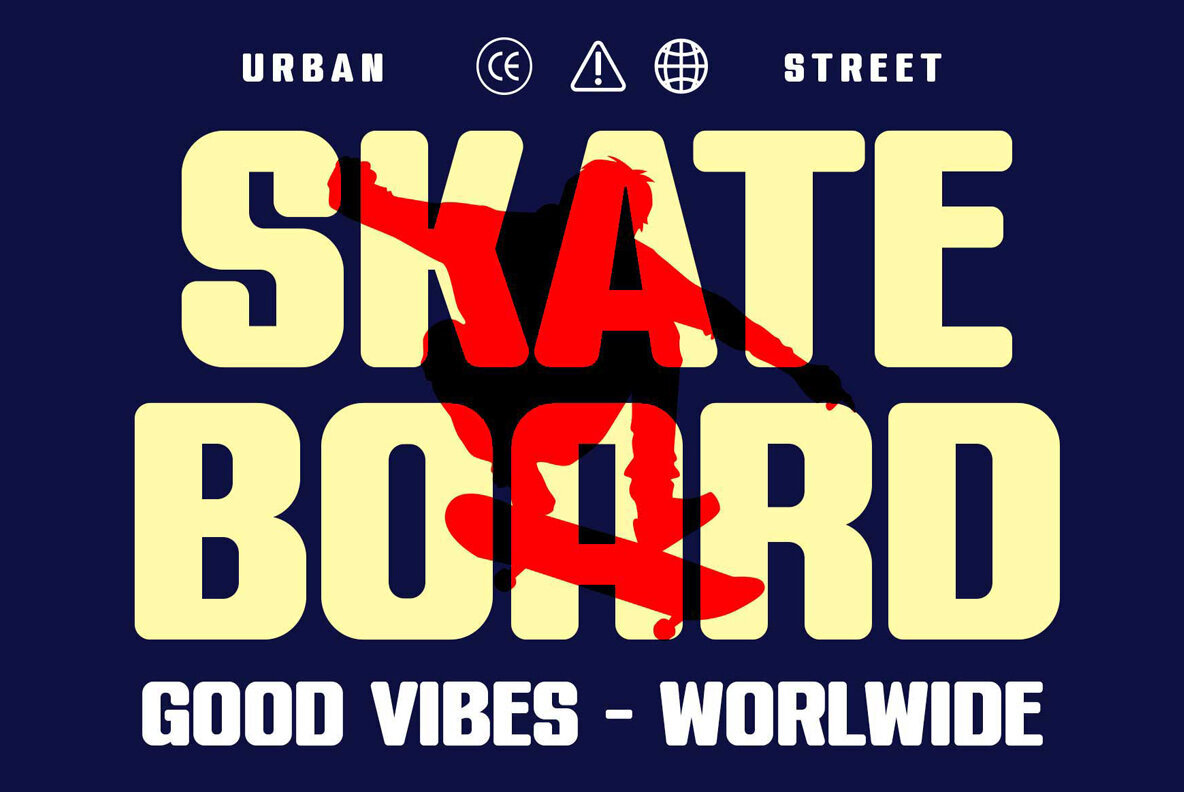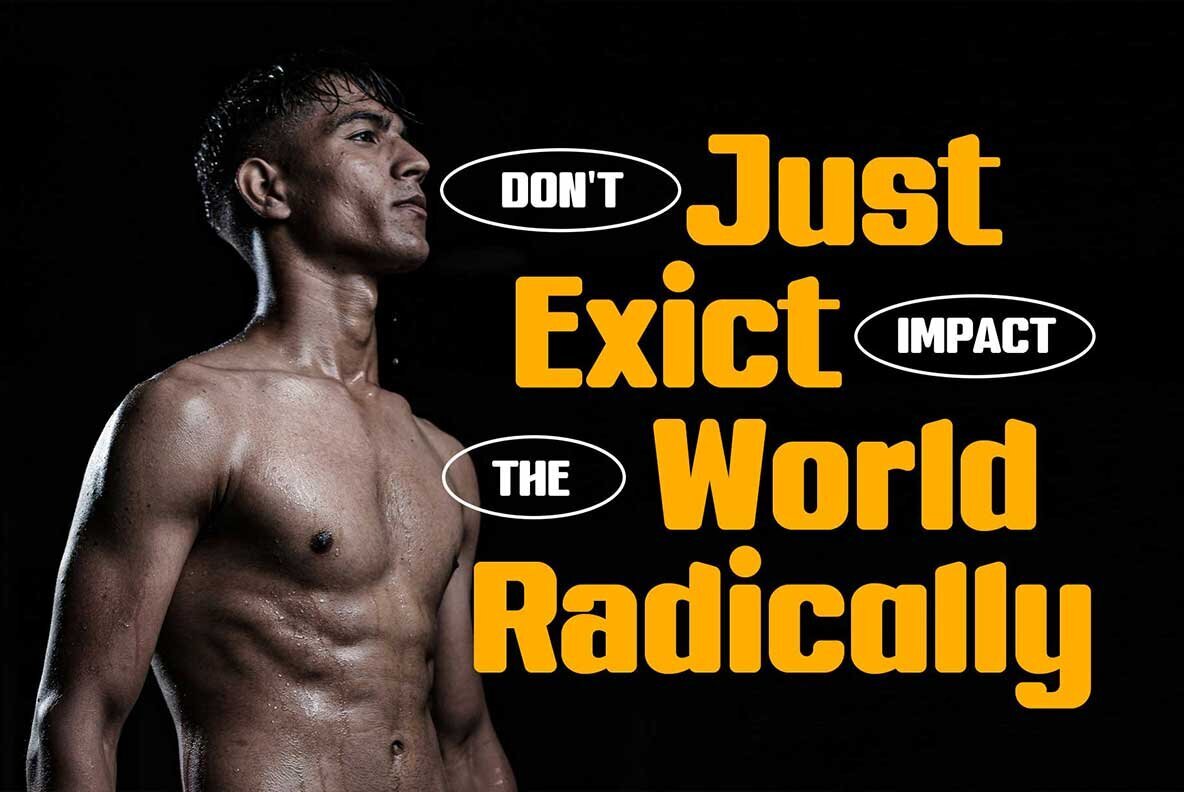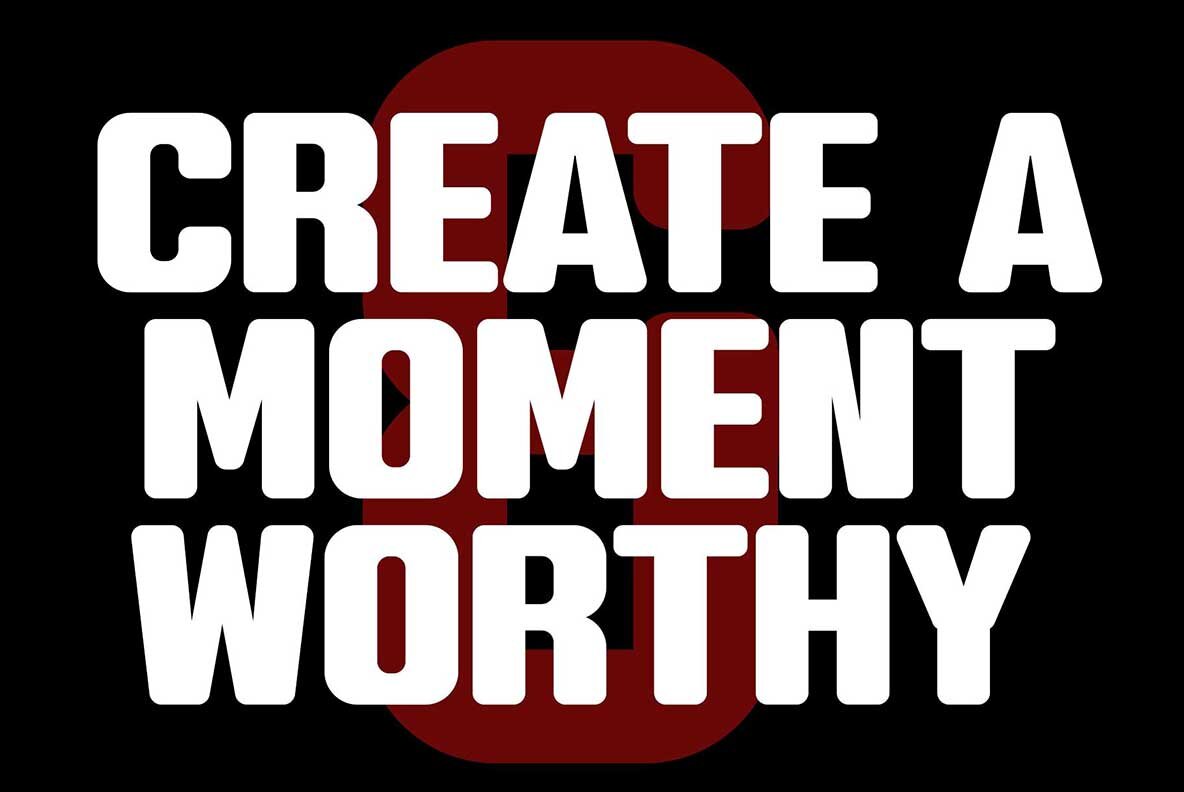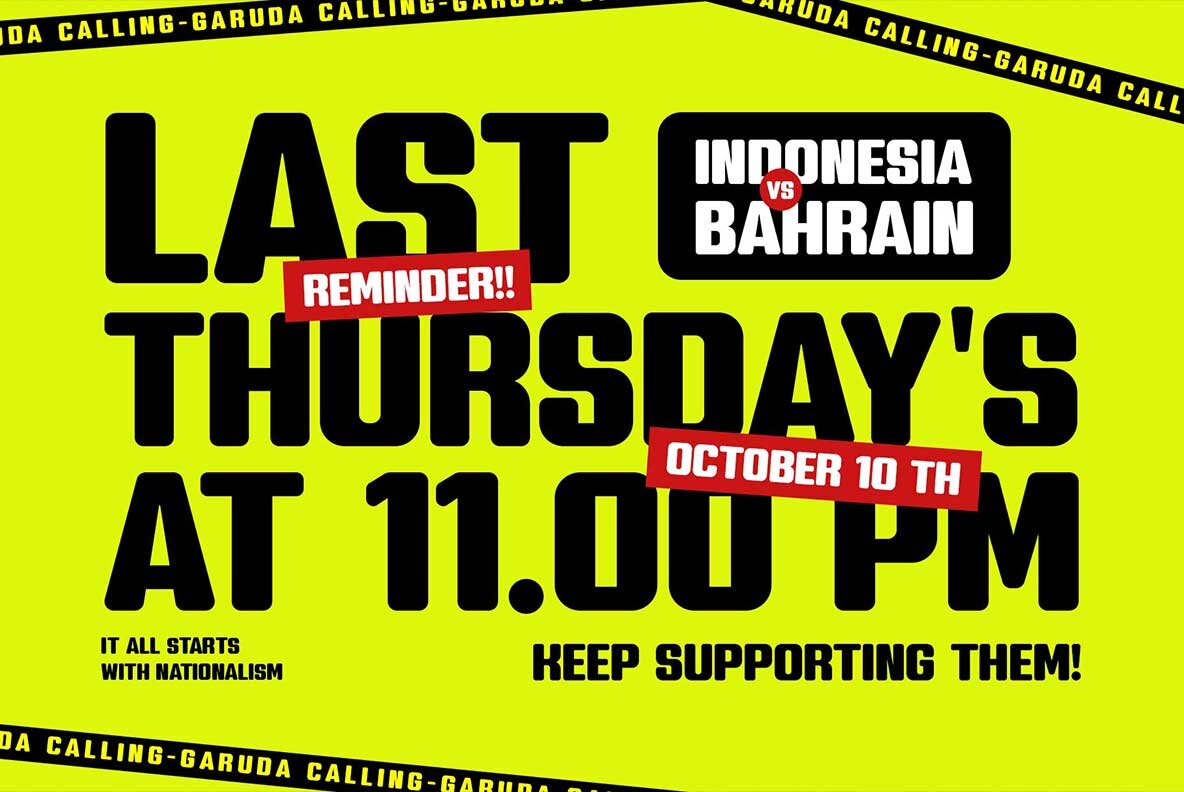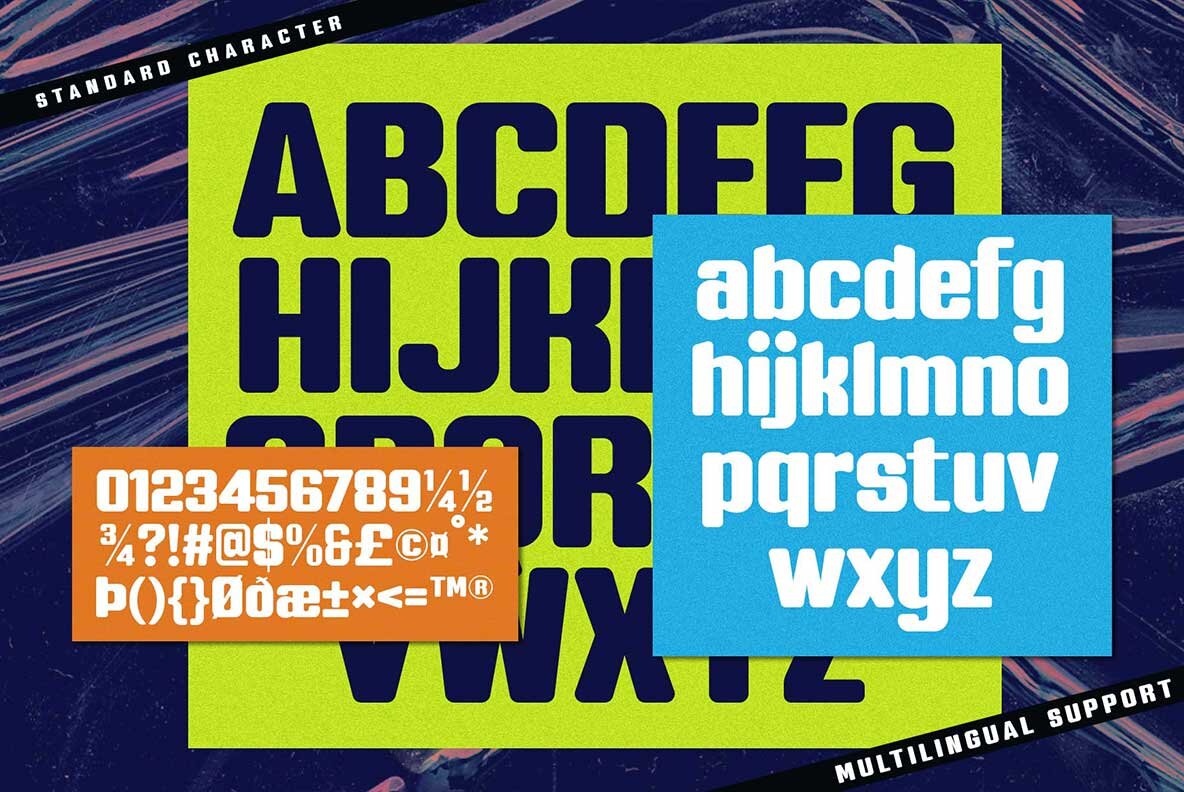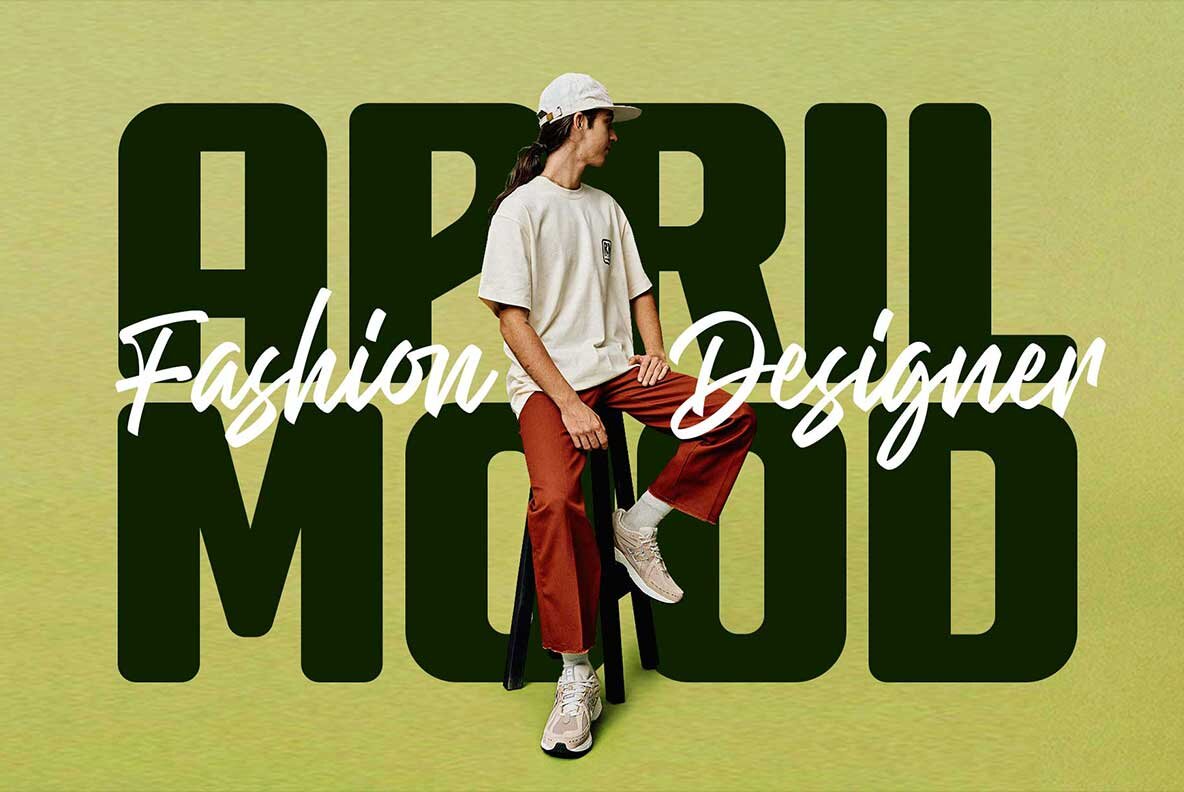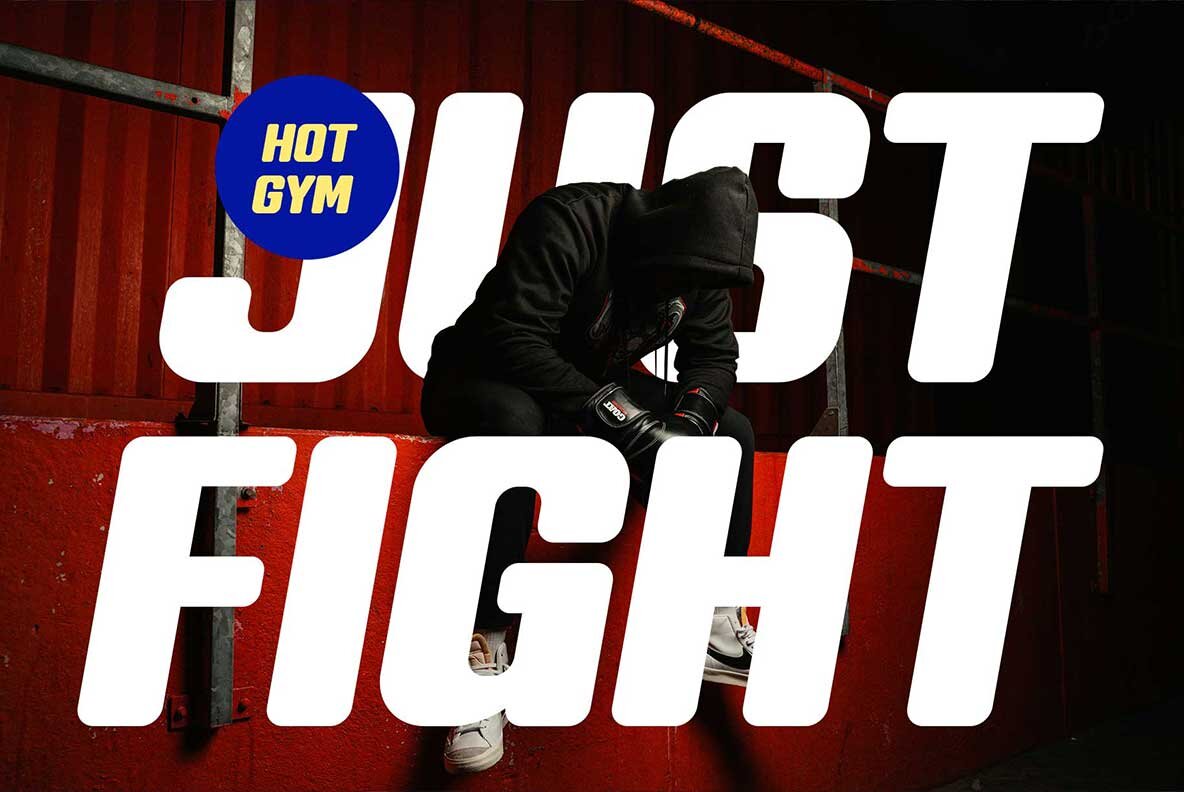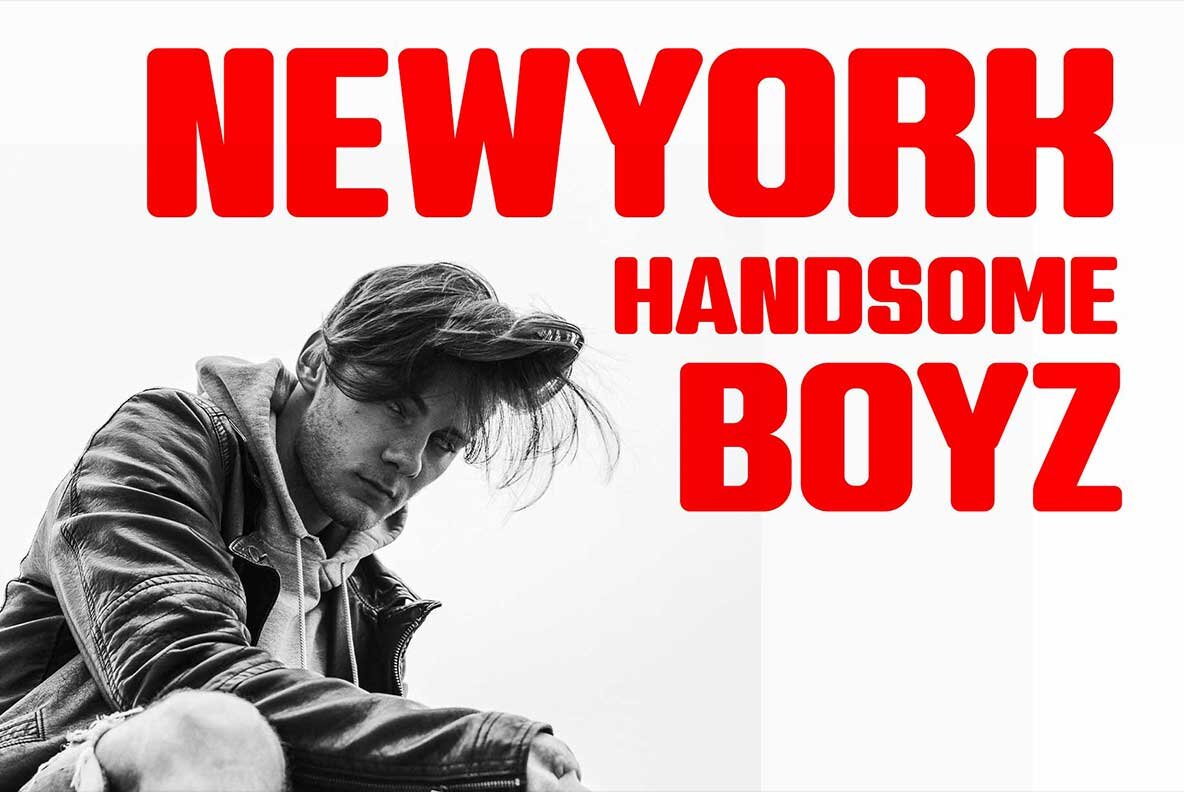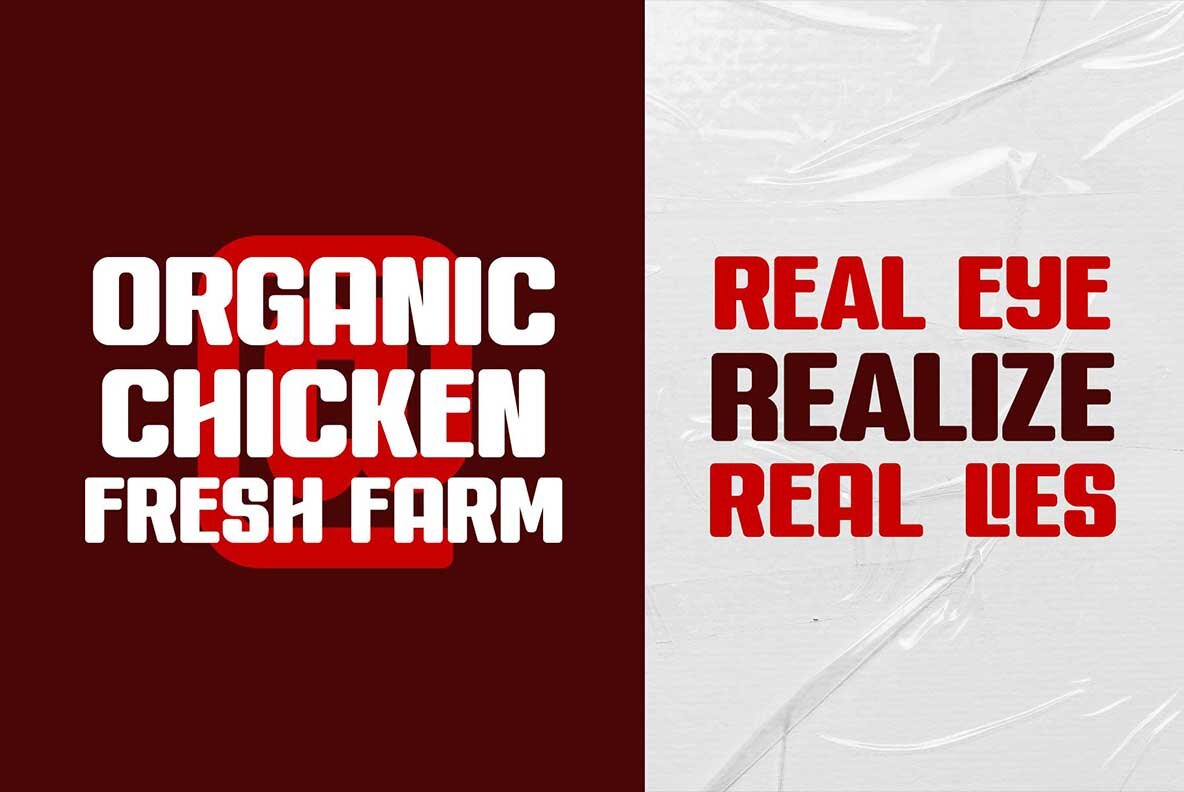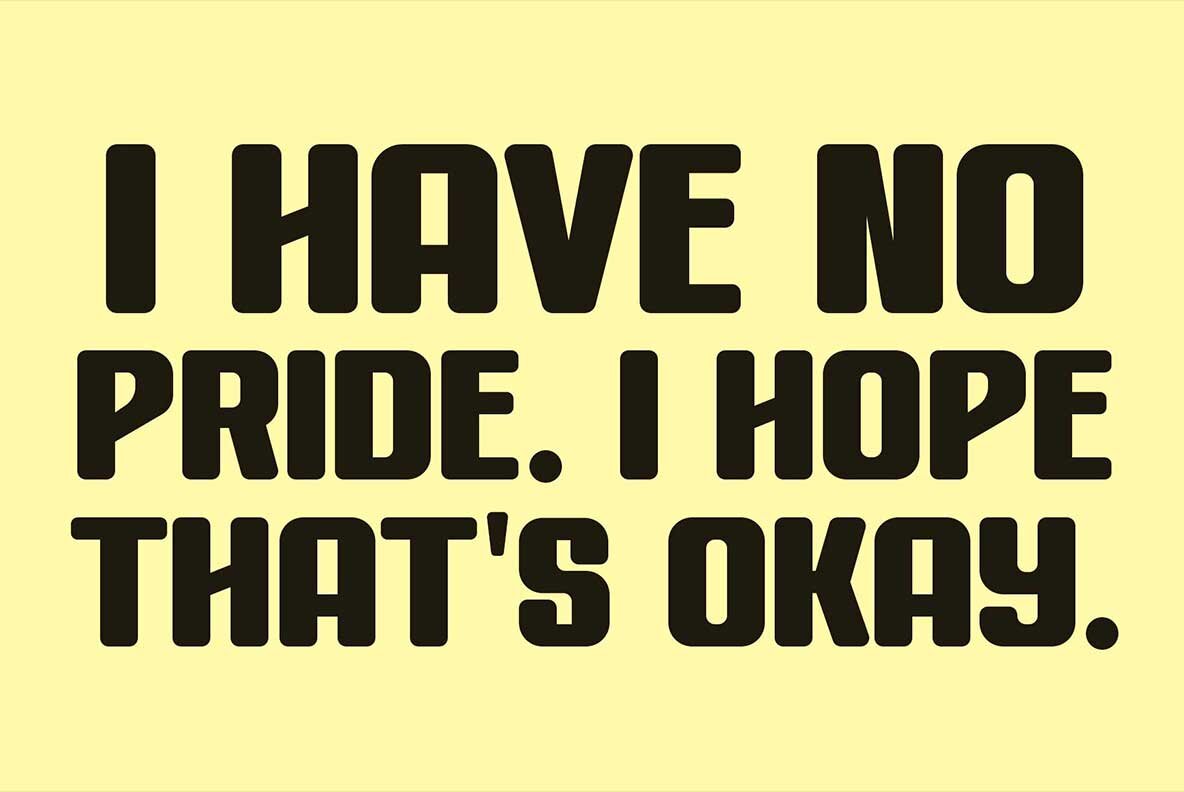
Grand Bageur Font
Introducing a font that artfully blends sporty strength with elegance through its condensed, rounded-edge design. Perfectly suited for logos, branding, and urban style projects, this font shines in a variety of applications such as sports merchandise, posters, and headlines. Its bold presence in both regular and slanted styles ensures a sleek, professional finish for your projects.
This versatile font includes uppercase and lowercase letters, numbers, symbols, stylistic alternates, ligatures, and multilingual support. These features provide a comprehensive toolkit for a diverse array of creative endeavors, making it ideal for designs ranging from stickers to quotes. Stand out with strong and stylish typography in your next project.